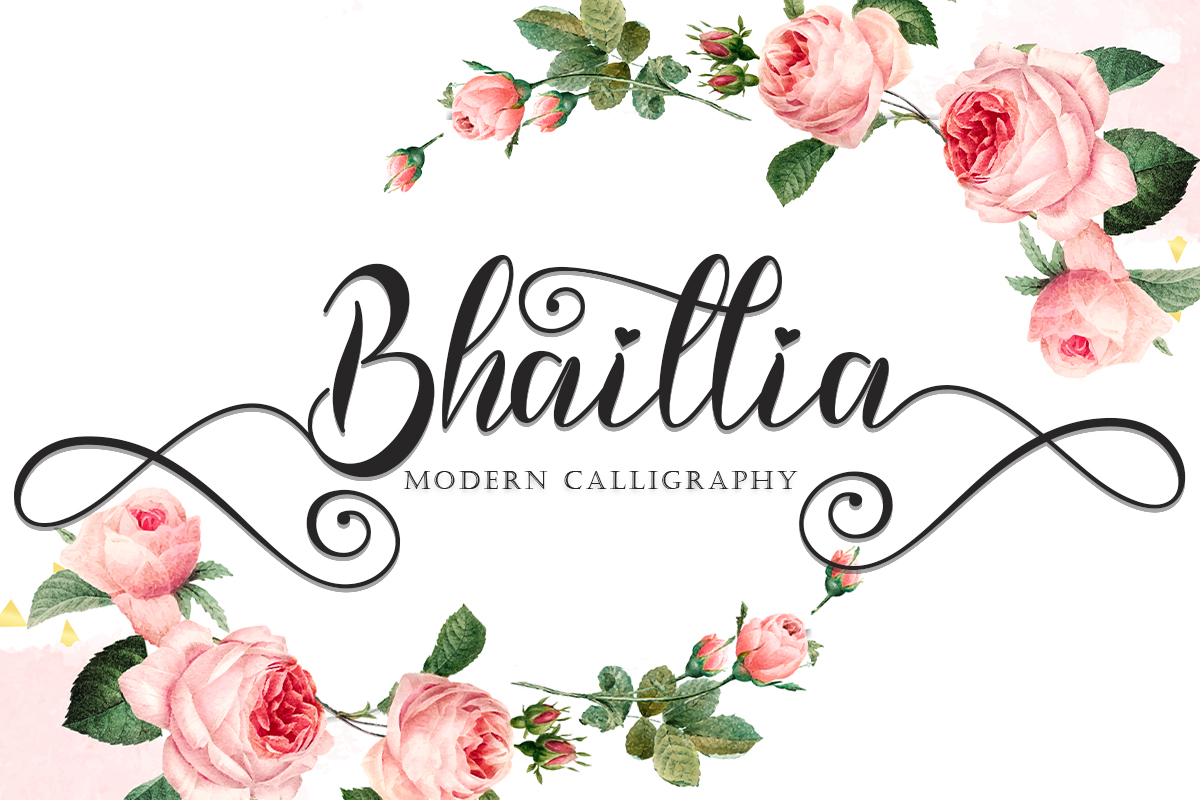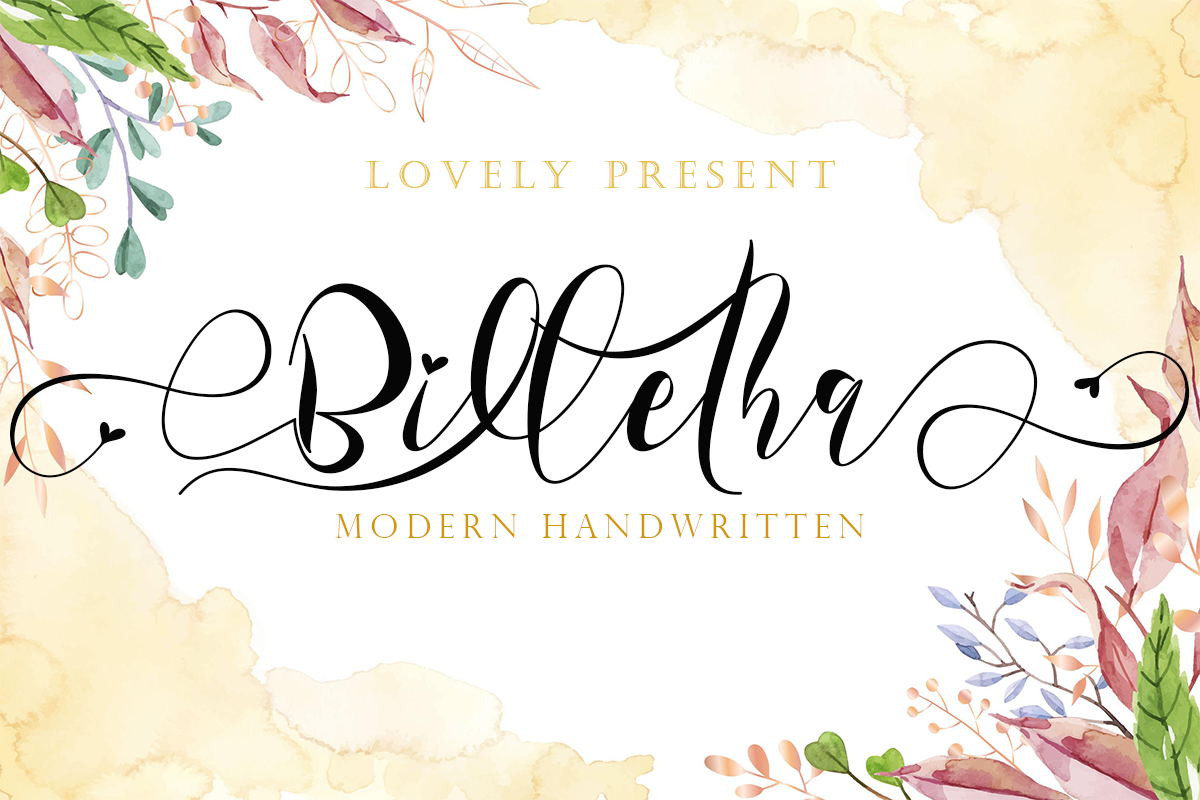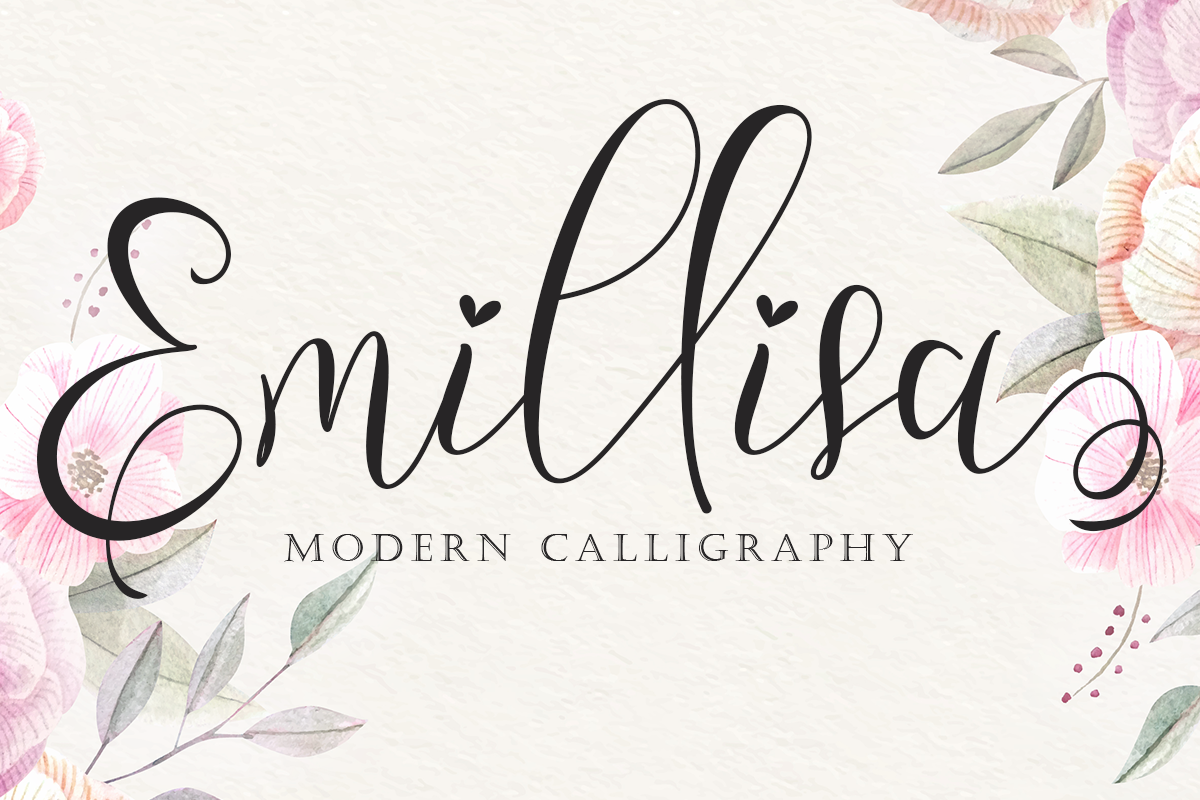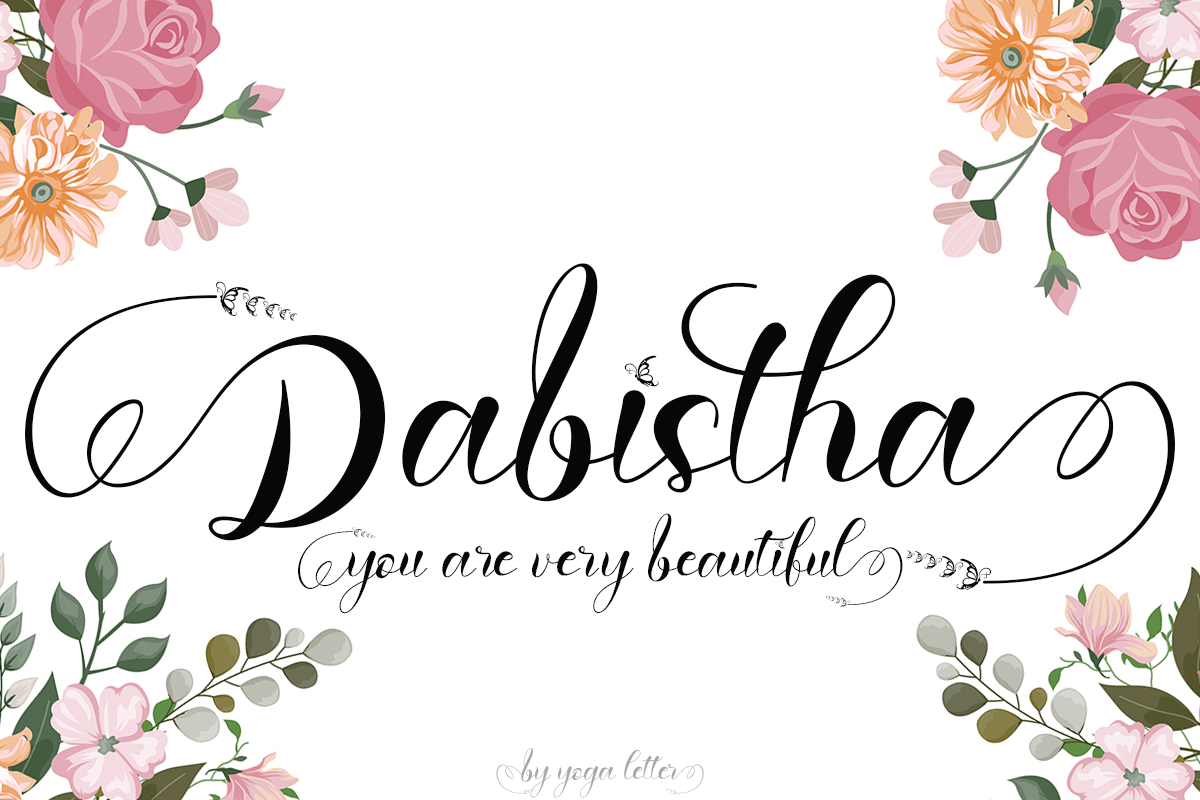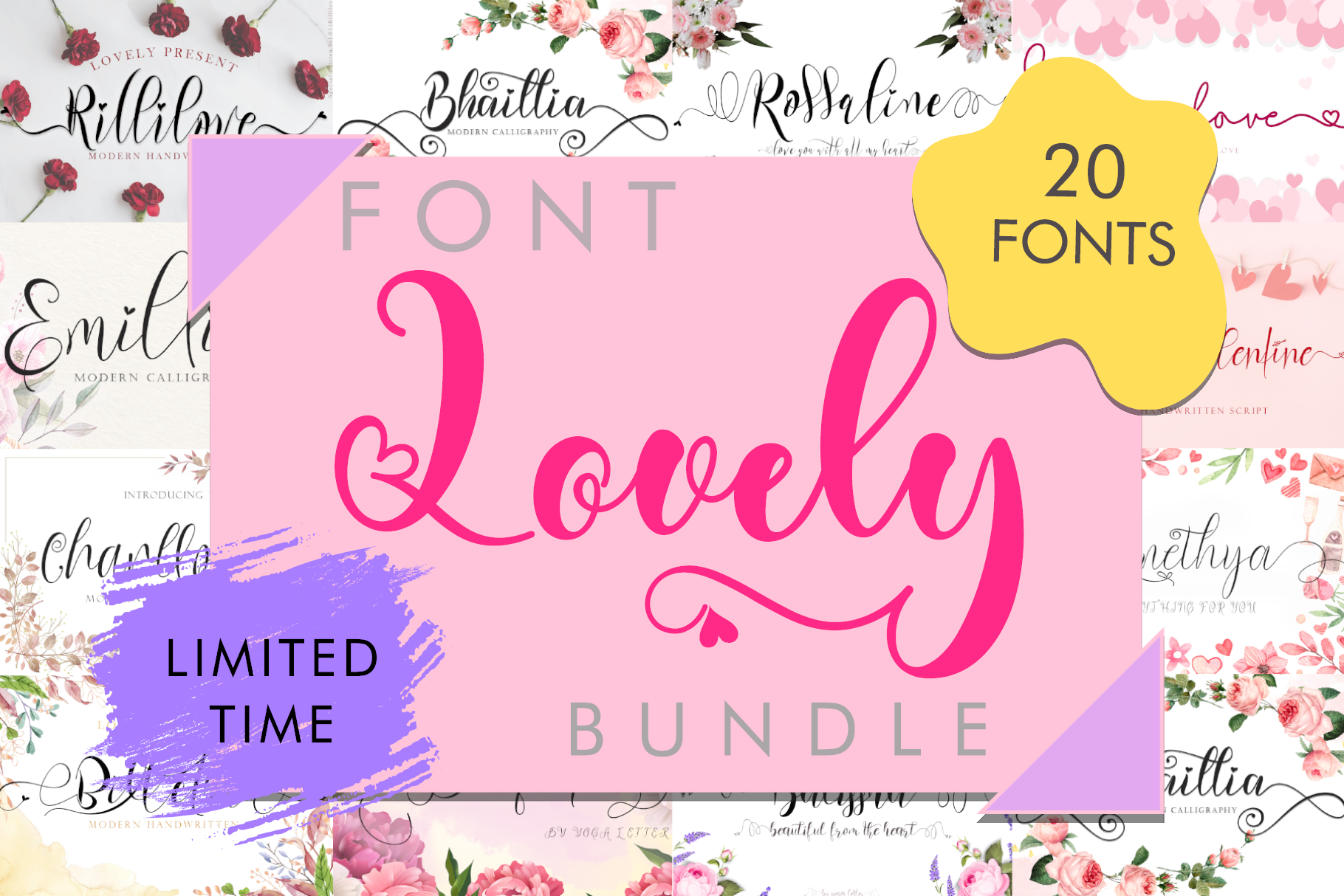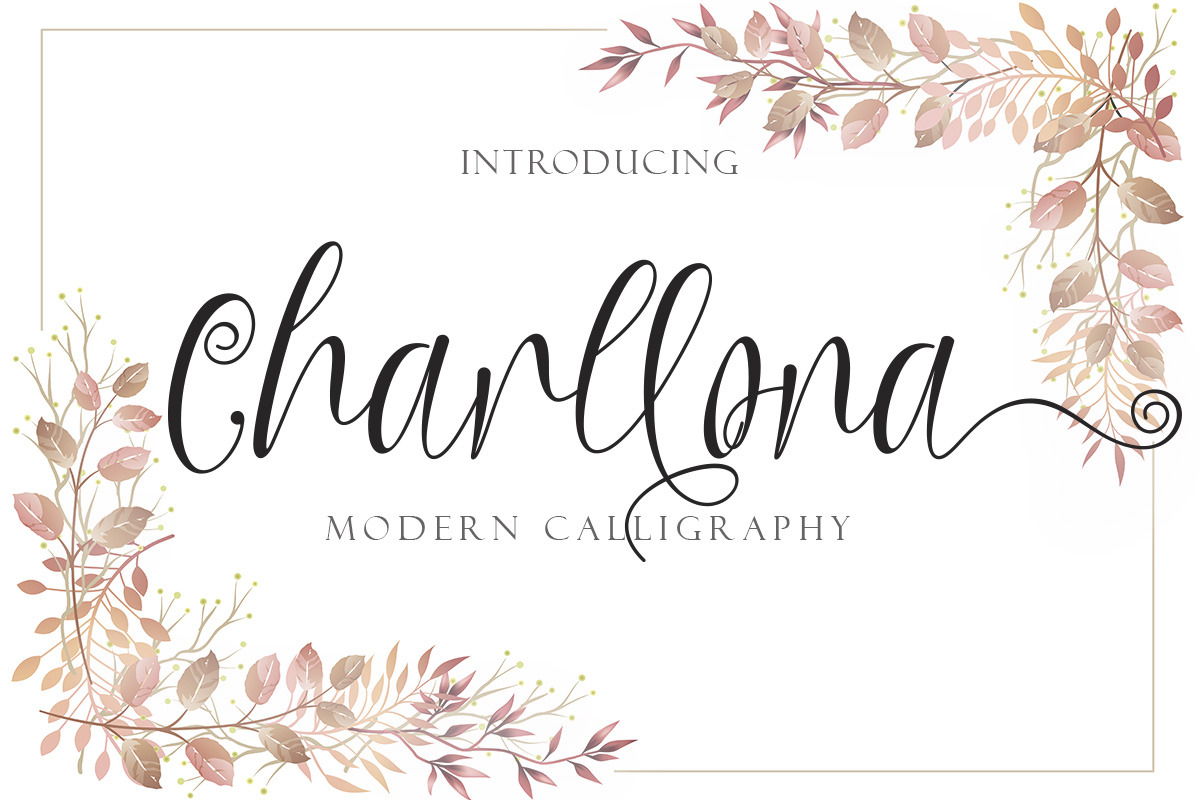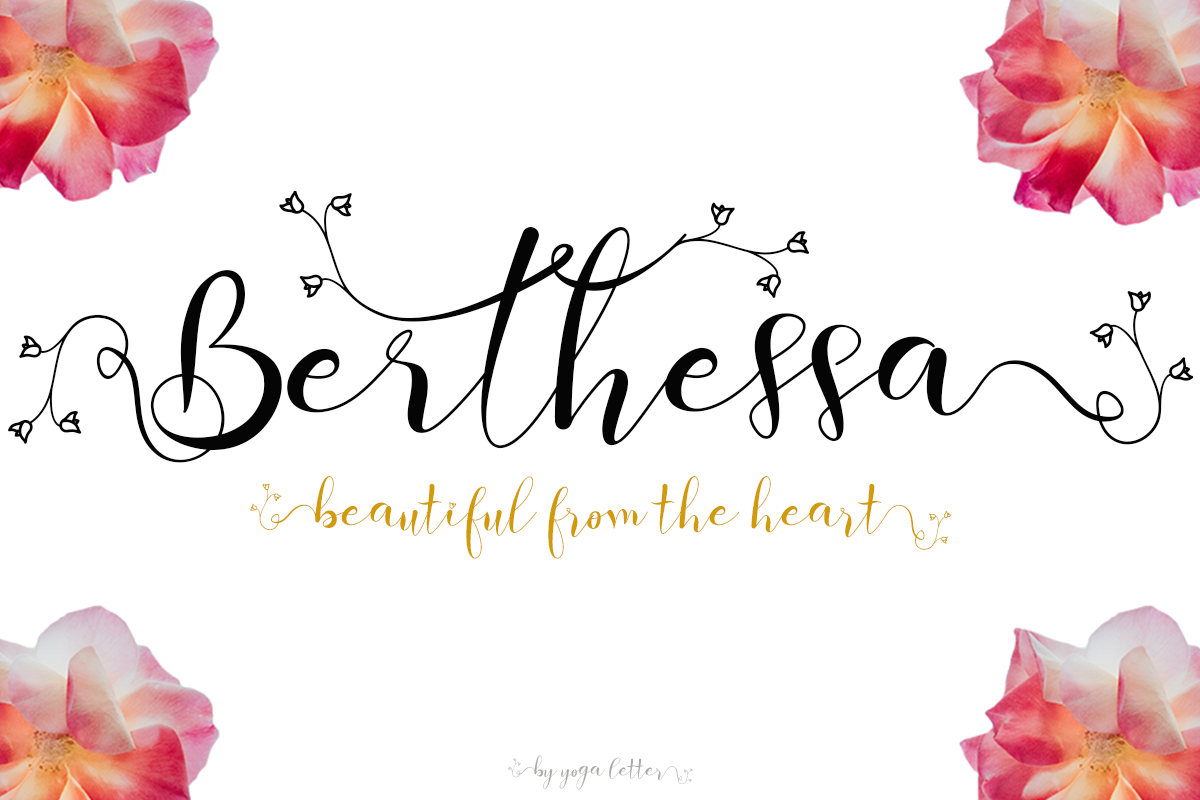
Lovely Font Bundle
This creative collection features 20 beautiful and elegant fonts. Perfect for:
1. Wedding Invitations
2. Branding
3. Logos
4. Product Packaging
5. Social Media Designs
6. Greeting Cards
7. Craft Projects
8. Christmas Themes
A complete font collection for all your design needs:
1. Bethlove
2. Amantha
3. Shamilove
4. Hello Valentine
5. Charllona
6. Emillisa
7. Qanethya
8. Dhefentha
9. Bhaillia
10. Roshalia
11. Balissha
12. Dabistha
13. Monalissa
14. Billetha
15. Berthessa
16. Astherlia
17. Beathria
18. Rillilove
19. Rossaline
20. Sherllia